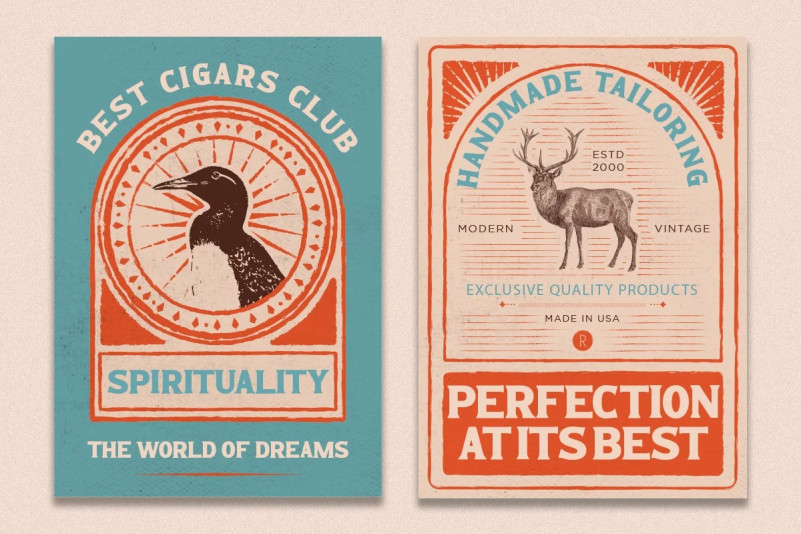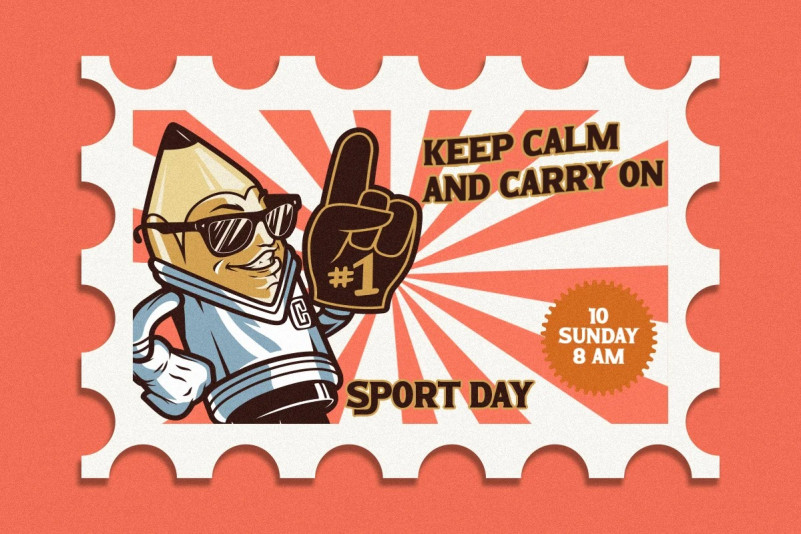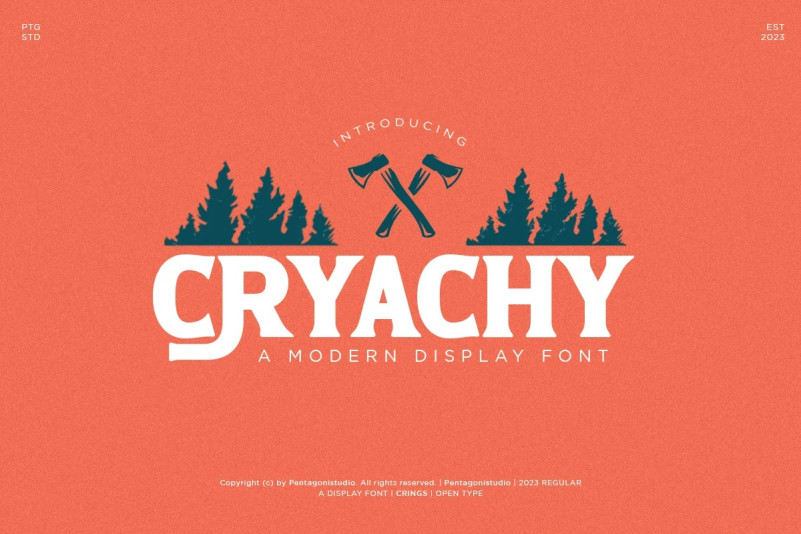
Cryachy Font
Cryachy Serif Font is a modern display character inspired by stylish and angular style. Suitable for any design needs : logo, branding, modern advertising design, logos, poster quote, book / cover Title, editorial design, website / blog, card, t-shirts,…